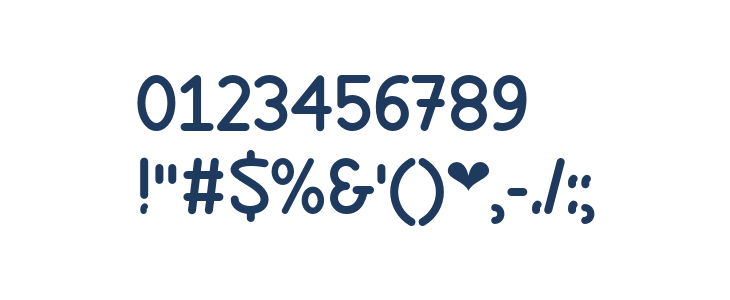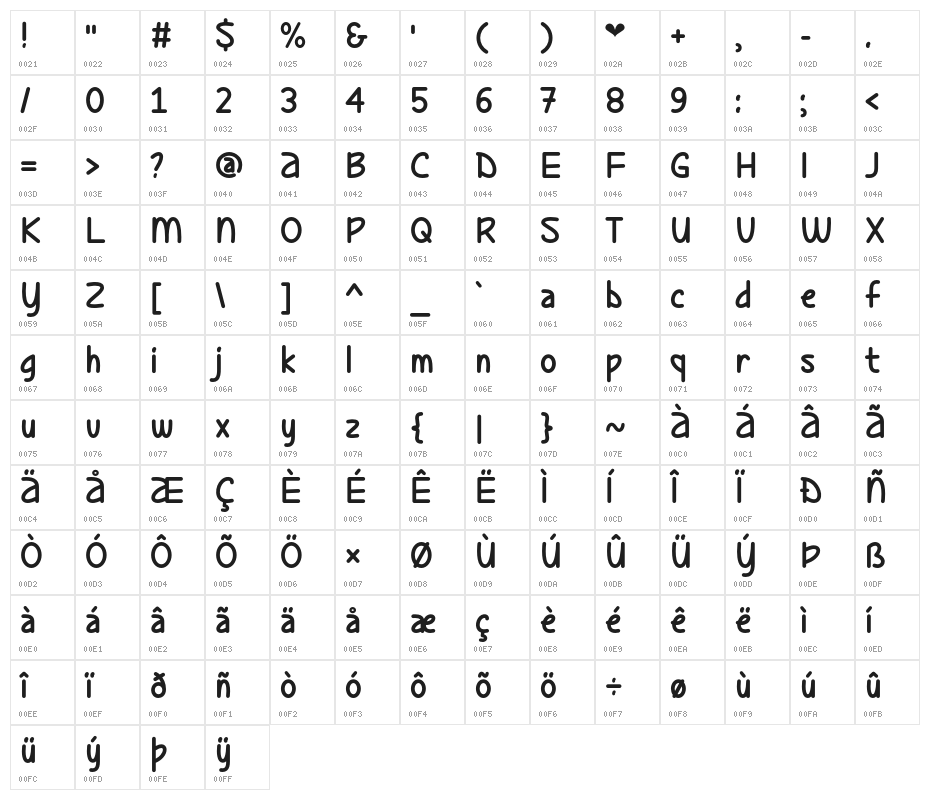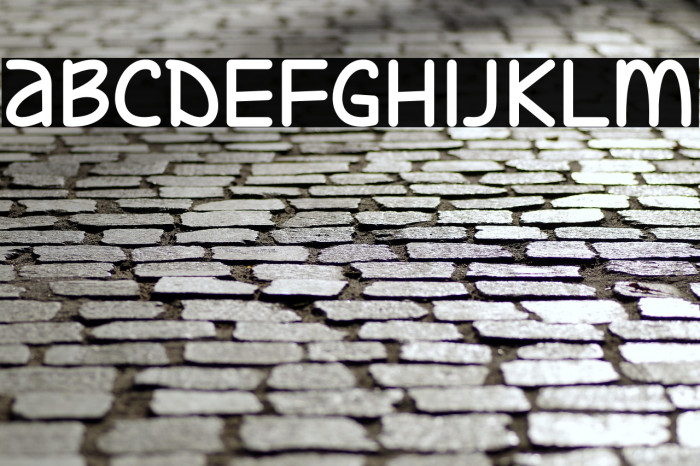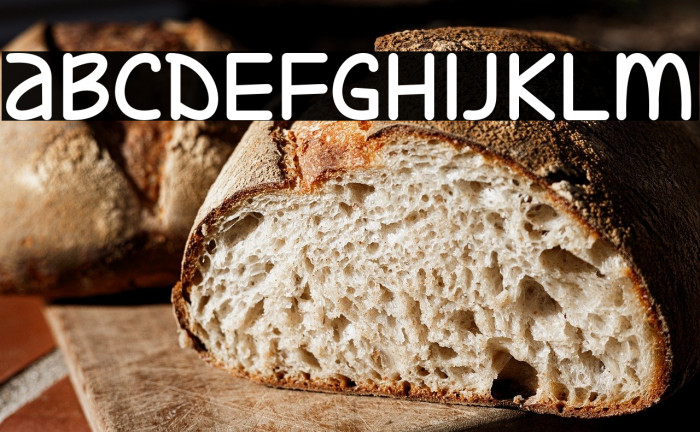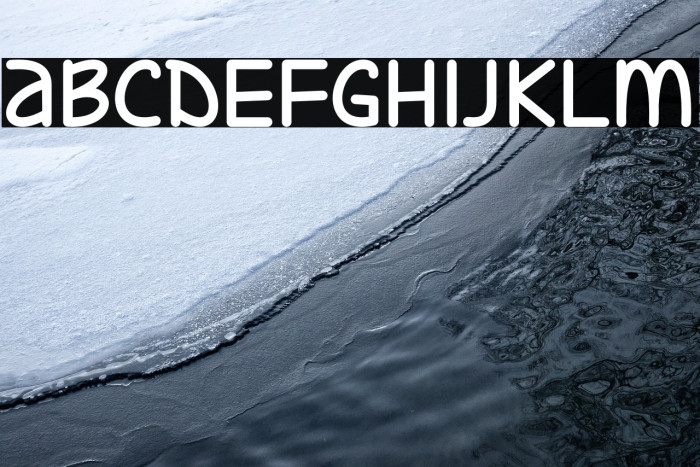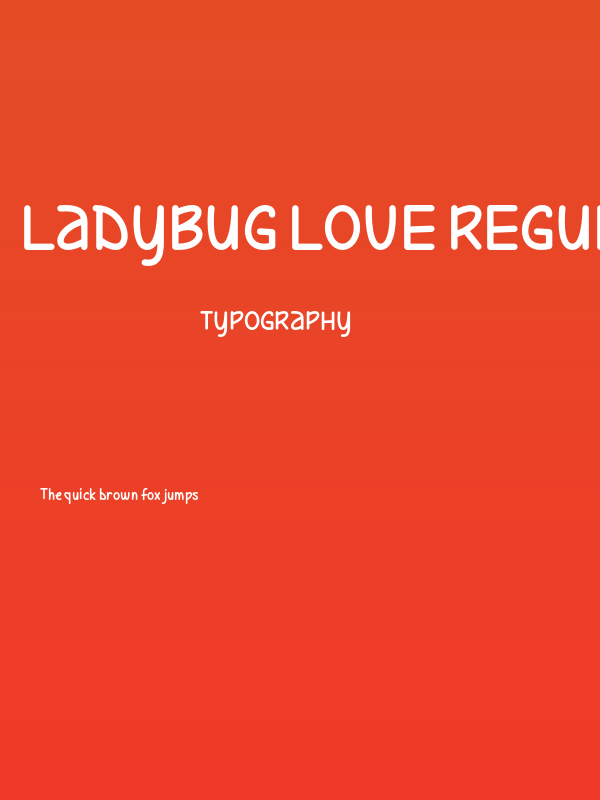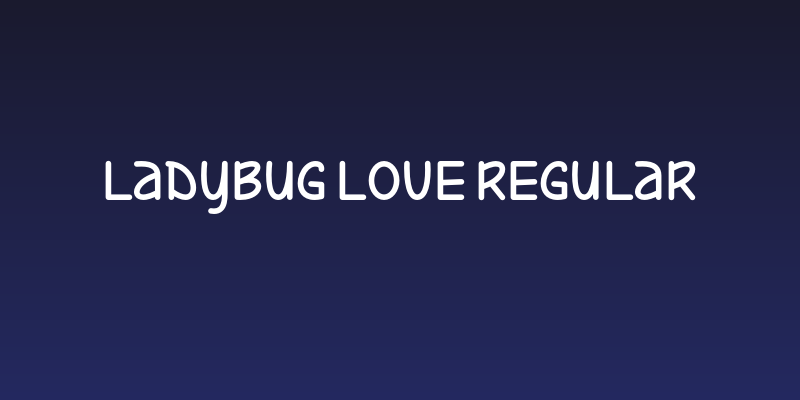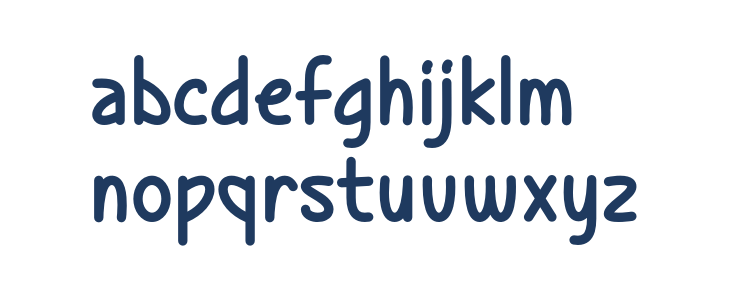
Ladybug Love Regular Font
Ladybug Love Regular Description
This playful and rounded font exudes a friendly and approachable vibe. The characters are bold and slightly condensed, with smooth curves and a consistent stroke width that gives it a cohesive look. The uppercase and lowercase letters maintain a uniform style, enhancing readability. The numbers and special characters are designed with the same playful aesthetic, making them suitable for a variety of uses. The overall design is clean and modern, with a touch of whimsy that makes it ideal for projects aimed at a younger audience or for adding a fun element to any design.
| Use Case | Headlines, Logos, Children's materials |
| Proposed Projects | Ideal for children's books, playful branding, greeting cards, and educational materials. |